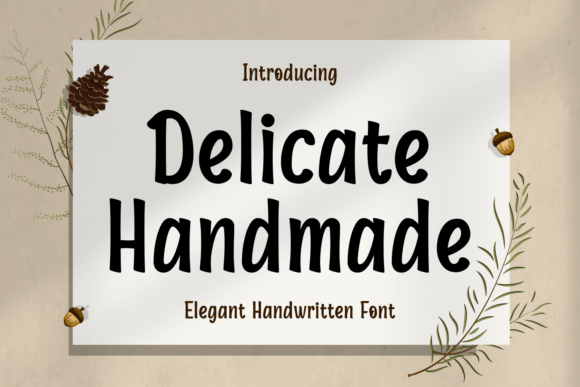
Introducing Delicate Handmade – the new script font that will make your project stand out and shine, just like the most beautiful of handwritten pieces!
With its elegant curves and flowing forms, Delicate Handmade adds an irresistible touch of grace and finesse to any design. Crafted with care by Rian (7NTypes), this exquisite font family is perfect for tattoo scripts, expressing your deepest emotions, and bringing life to your creative visions.
Go beyond the ordinary and embrace the extraordinary with Delicate Handmade. Whether you're a designer seeking that perfect touch of elegance or an artist yearning to showcase your unique style, this script font is your passport to a world of creative possibilities.